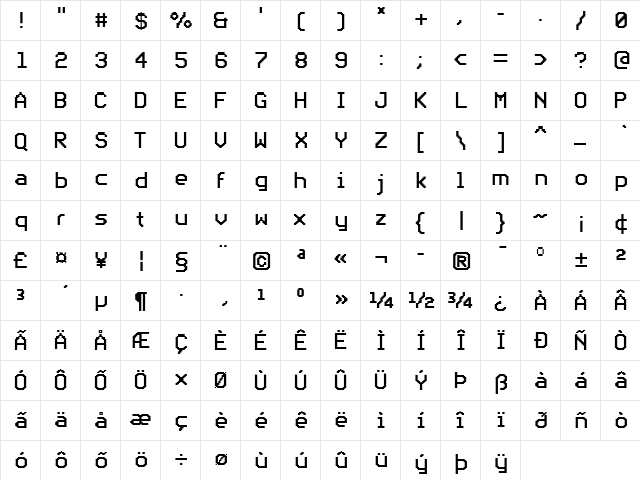
PF Videotext Pro Regular
| Foundry | Parachute蠗orldwide |
| Designer | Panos Vassiliou |
Design Context for PF Videotext Pro Typeface
PF Videotext Pro offers clean, dependable letterforms without strong stylistic allegiance, making it a practical choice for designers who need flexibility.